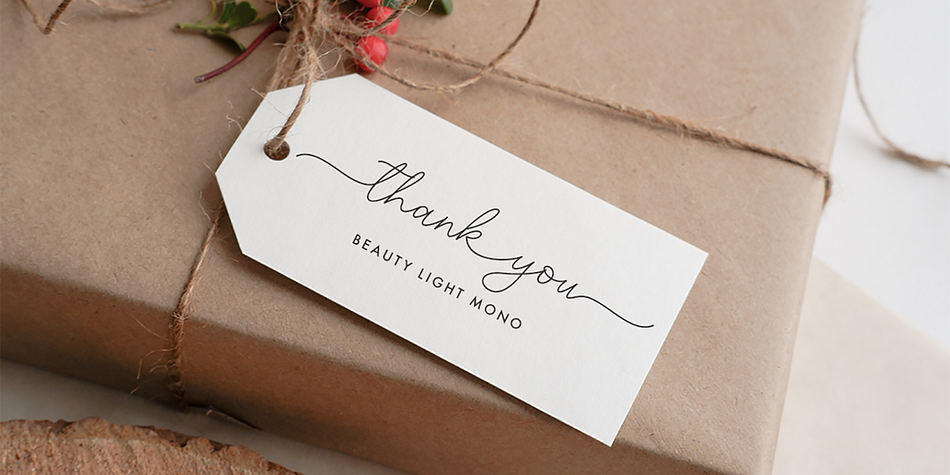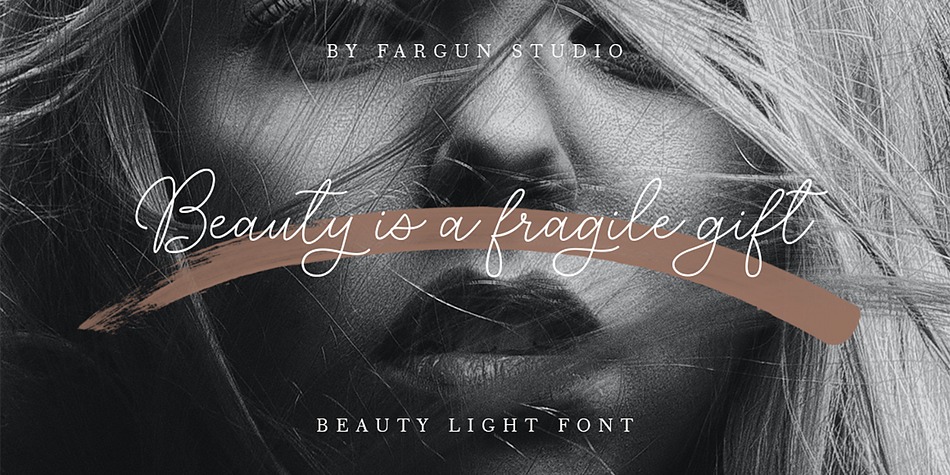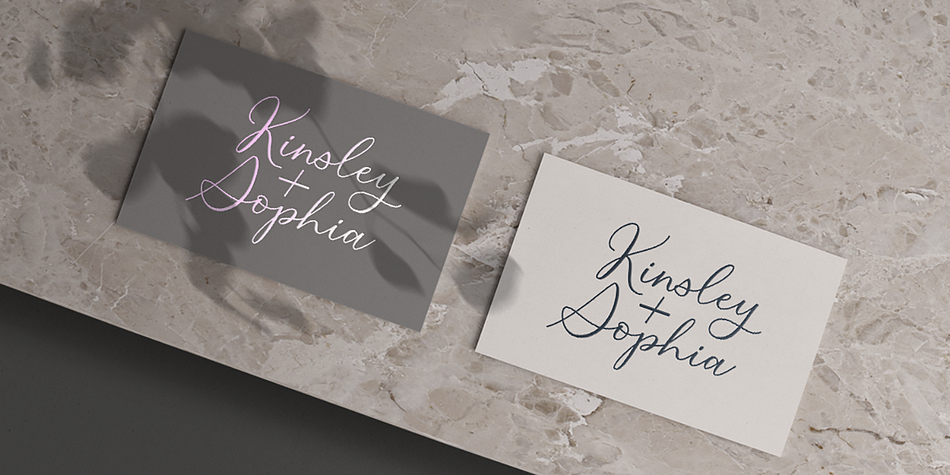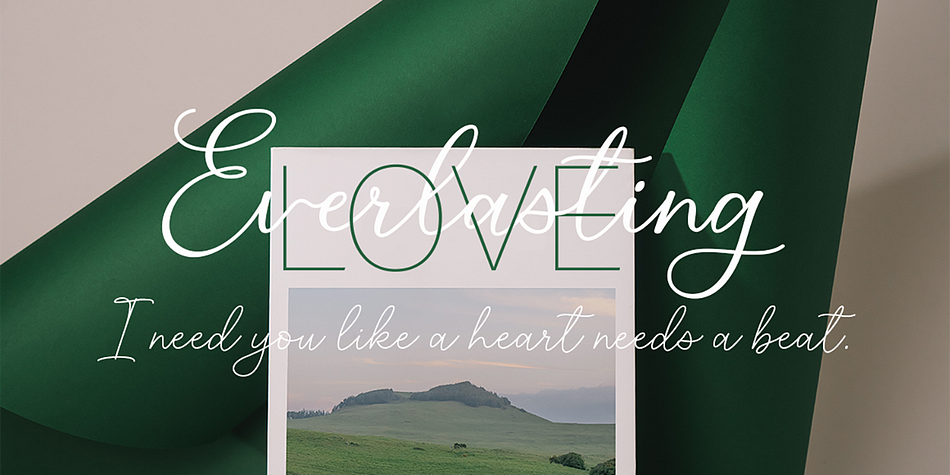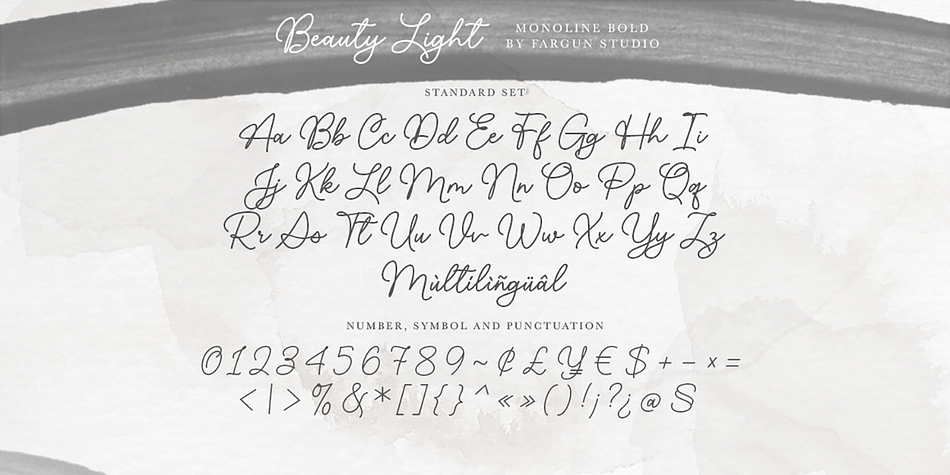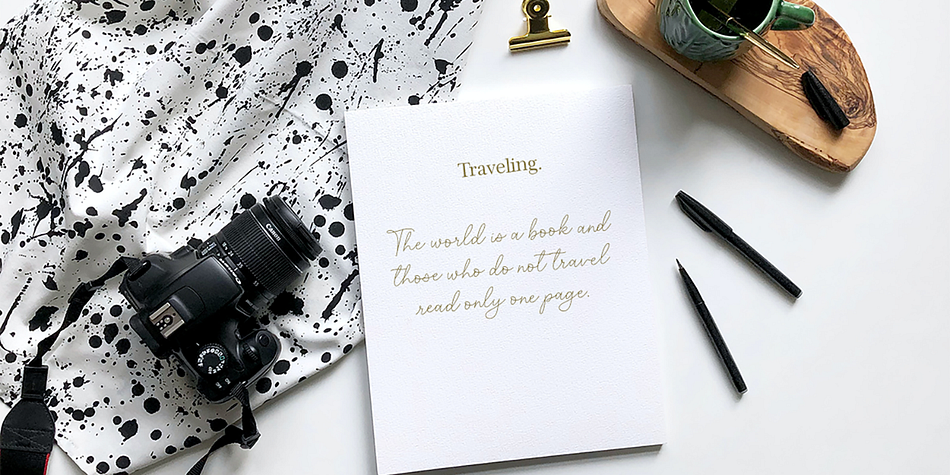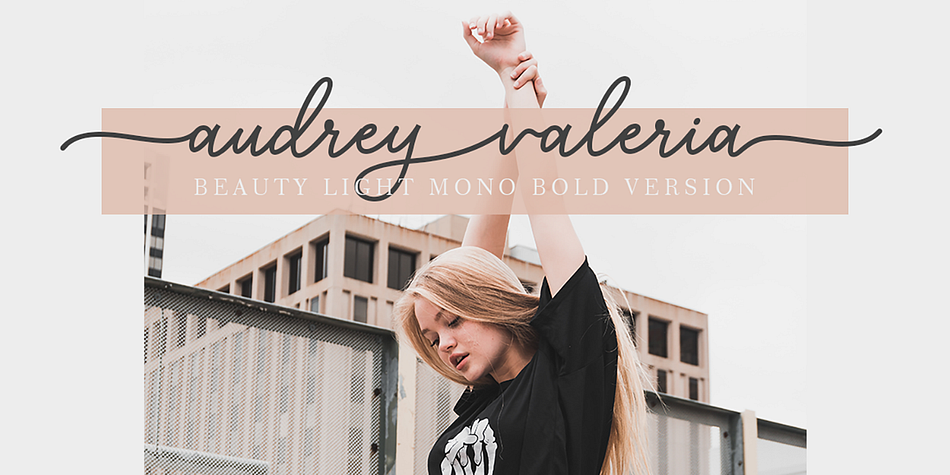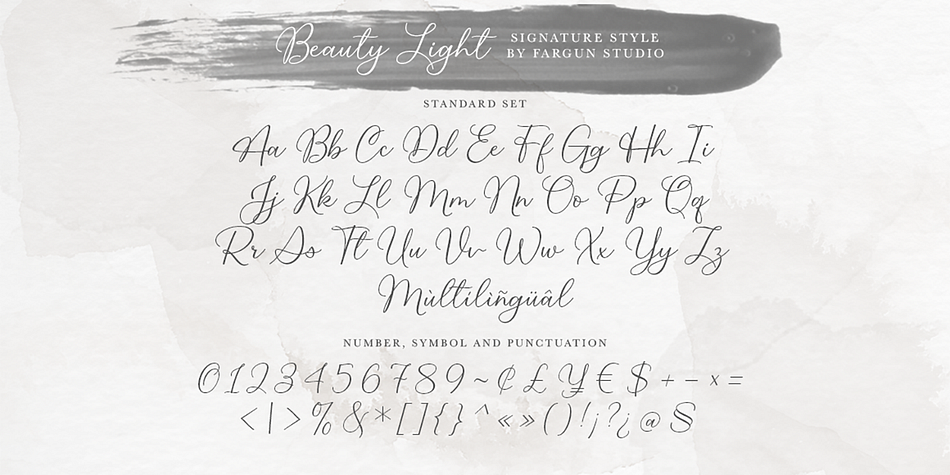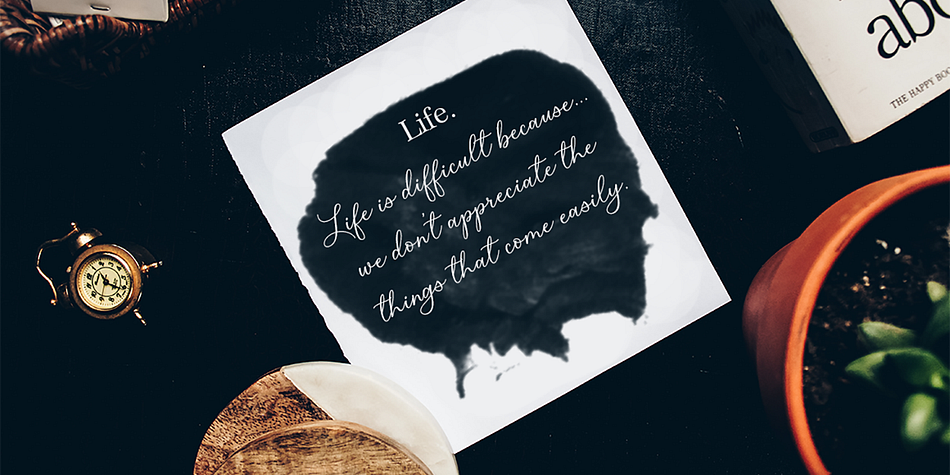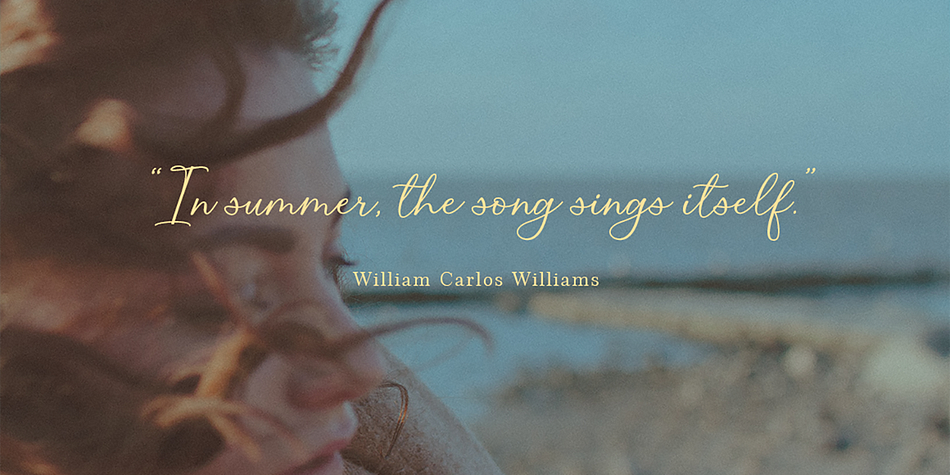
Beauty Light
Beauty Light is a script font family. This typeface has three styles and was published by Fargun Studio.
An interconnected, script font with a handwritten style that’s ideal for wedding correspondence, sophisticated handcrafted logos and corporate identity, online platforms, inspirational quotes on social media, and beyond! It comes complete with an extensive range of lowercase swashes for both the initial and final letters, as well as a unique collection of linking swashes designed to connect words seamlessly, achieving an elegant calligraphic appearance in handwriting.
Unique Swashes & Ligatures
Stylistic sets
Basic Latin A-Z and a-z
Numbers
International Symbols included
Punctuation